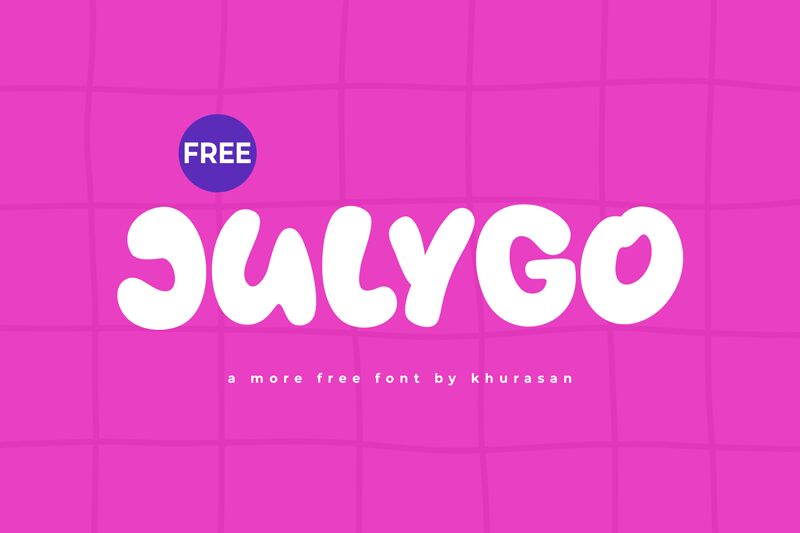
Julygo font family by Khurasan™ comes in 2 font styles and features a cartoon-inspired design. This font perfectly embodies a cheerful bubbly aesthetic with its playful shapes. Julygo is informal and has a feel to it that is relaxed and friendly, conveying a sense of warmth and comfort. This is a great choice for designers where a playful effect is needed to fit both young and adult audiences.
Variants of product designs Julygo can be used in include packaging, invitations, labels, apparel, or book covers. More print applications come in the form of advertising posters, magazine spreads, leaflets, or even newspaper covers and articles. On the digital side of things, Julygo is great when used in web and social media typography.